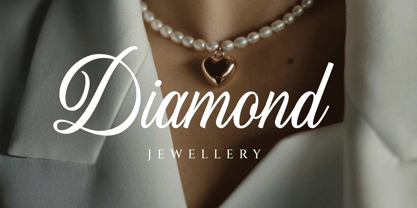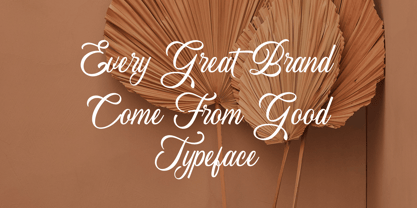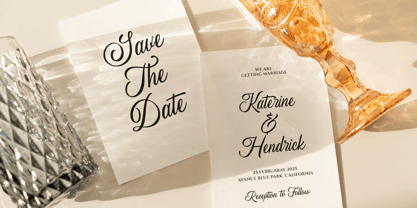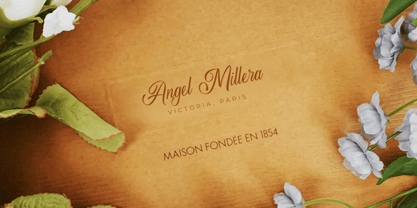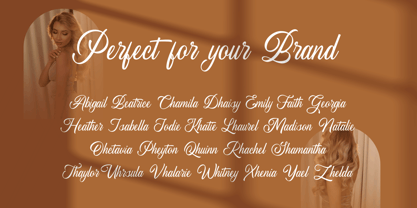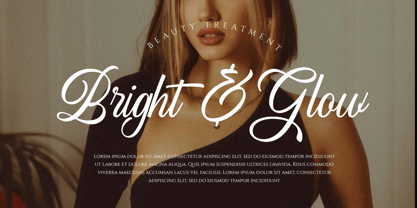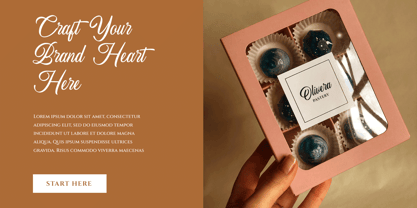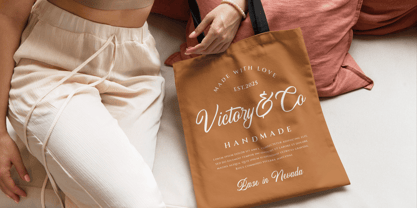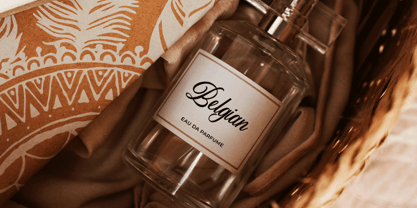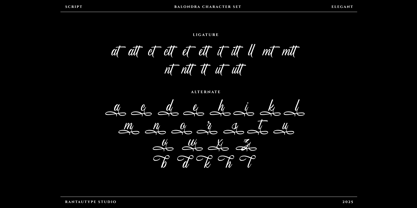
Balondra
by RantauType
The Balondra Font Family was designed by Yudi Pratama Chandra and published by RantauType. Balondra contains 1 styles. More about this family
Balondra is script font embrace grace and feminity. Balondra is a perfectly choice for any creative endeavor, creating, modern, chic, lifestyle design such as logotype, title, cover, branding, invitations, wedding designs, display and magazine, social media posts, advertisements, printed quotes, product packaging, corporate brand, product designs, labels, photography, watermarks, special events and any other project with elegant touch.
• Ligature and alternate
Designers: Yudi Pratama Chandra
Foundry: RantauType